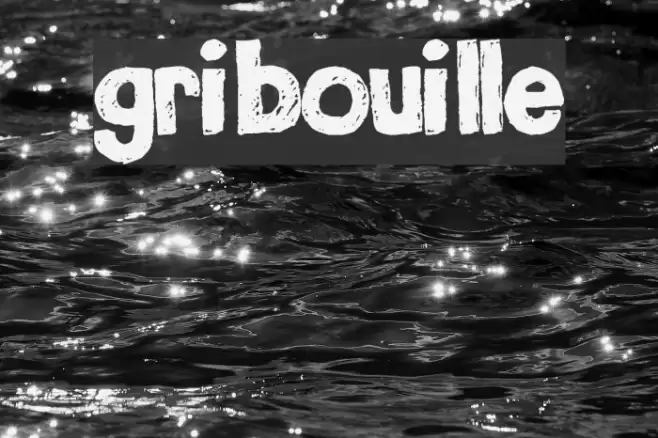
Gribouille Font
Gribouille Description
This font features a playful and artistic style with a hand-drawn appearance. The characters have a rough, textured look, giving them a casual and informal vibe. The letters are bold and slightly irregular, adding to the whimsical charm. The numbers and special characters maintain the same artistic quality, making the font suitable for creative projects. The overall design is reminiscent of chalk or crayon drawings, making it ideal for projects that require a fun and engaging aesthetic.
A playful, hand-drawn font with a textured, artistic style from Distorted Eroded fonts.
- Proposed Projects: Ideal for children's books, playful branding, posters, and creative invitations.
- Use Case: Logos, Posters, Creative Invitations